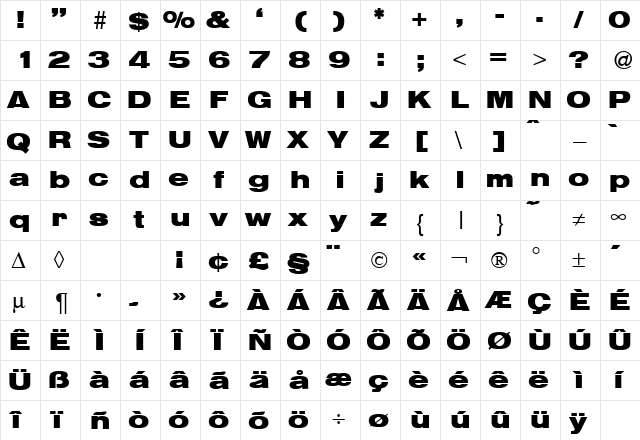
HegelExtended Bold
Design Context for HegelExtended Typeface
HegelExtended offers clean, dependable letterforms without strong stylistic allegiance, making it a practical choice for designers who need flexibility. The heavy weight commands attention and anchors typographic hierarchies.